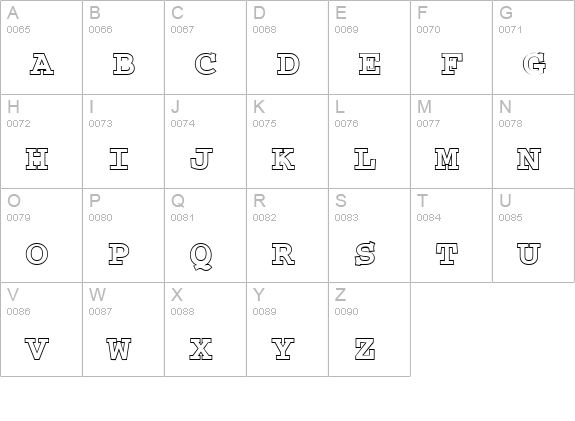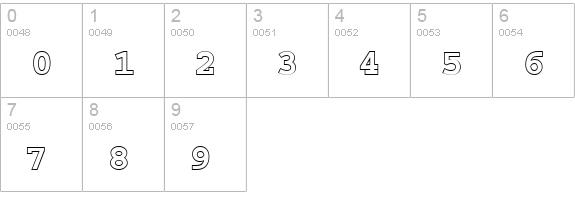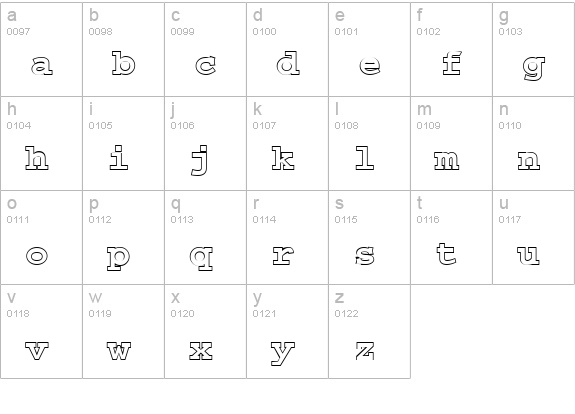
AlphabetOpen font is a modern and stylish typeface that exudes sophistication and elegance. Its clean lines and sleek design make it perfect for a wide range of projects, from branding to editorial design. The open and airy letterforms give AlphabetOpen a unique and eye-catching appeal that will make your text stand out. What sets AlphabetOpen font apart is not just its striking appearance, but also the fact that it is completely free to download. That's right, you can get your hands on this beautiful font at absolutely no cost. Simply head over to FontsMarket.com and start using AlphabetOpen in your designs today. Whether you're working on a personal project or a professional assignment, AlphabetOpen font is sure to elevate your work to the next level. Download now and let your creativity soar with AlphabetOpen.